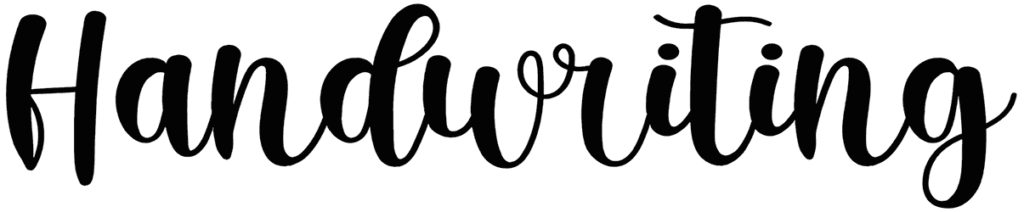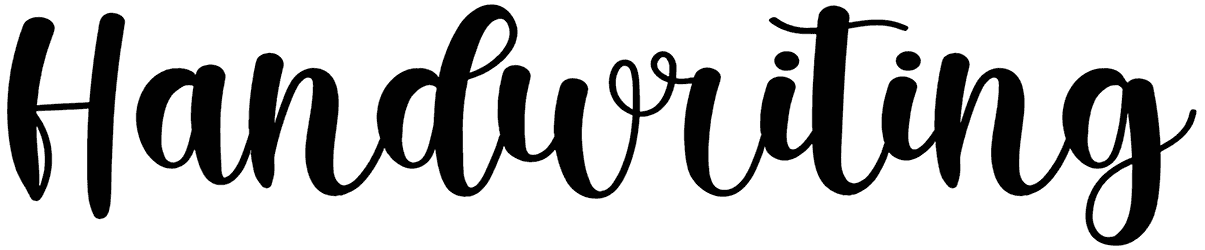
Handwriting Font
Have you noticed how much better manuscript words can communicate with the audience? As a handwritten font with soft and curvy letters, Handwriting is a nice pick to bring this kind of style to your design. Place this script font in your upcoming projects, such as wedding cards, planners, logotypes, books, and more, to give them a cheerful vibe.